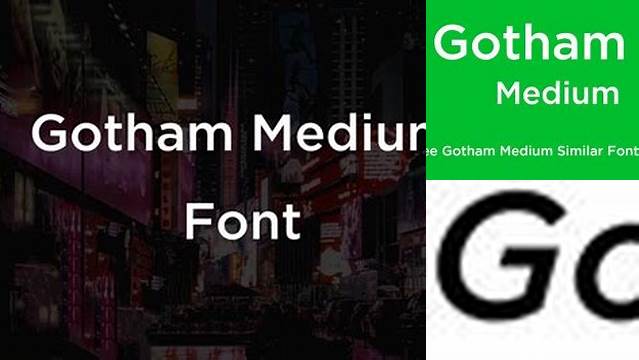
Hey guys! Looking to spice up your design game on your Mac? You're in the right place! Today, we're diving headfirst into the world of the Gotham Medium font, and, even better, how you can snag it for FREE! Yep, you heard that right. This iconic typeface, known for its clean lines and modern aesthetic, is a favorite for everything from website headlines to print materials. Let's get started on how you can grab a Gotham Medium font free download Mac and start using it right away.
Gotham Medium Font: A Design Powerhouse
Gotham Medium font isn't just any font; it's a design statement. Its versatility makes it ideal for a wide range of projects. Whether you're designing a sleek website, crafting eye-catching marketing materials, or simply sprucing up a personal project, the Gotham Medium font can elevate your work. Its clean, geometric design makes it incredibly readable, which is crucial for any design, and its modern style ensures your project feels current and stylish. This font family has many weights and styles, but today, we are going to focus on Gotham Medium.
The beauty of Gotham Medium lies in its simplicity. It's not overly embellished, which allows the message to shine through without distraction. This font is an excellent choice for headlines, subheadings, and even body text, depending on the context. Its neutral design makes it pair well with various design elements and other fonts. This adaptability is why it's become a go-to font for designers worldwide. From small businesses to large corporations, the Gotham Medium font has found its place, demonstrating its impact on design. It has the ability to make any design project pop. With just a few clicks, you can start downloading your Gotham Medium font and transform your designs.
Moreover, Gotham Medium is perfect for creating a sense of professionalism and trust. Its clean lines and straightforward design convey clarity and reliability. This makes it an excellent choice for branding materials, like logos, business cards, and brochures. Using Gotham Medium can make a lasting impression and strengthen your brand identity. Its popularity has created an entire industry with copycats. This is a testament to the popularity of the Gotham Medium font.
The History and Popularity of Gotham
The story behind the Gotham Medium font is as interesting as its design. Commissioned by GQ magazine in 2000 and designed by Tobias Frere-Jones, Gotham was inspired by the architectural signage of mid-20th-century America. Its geometric forms and simple lines pay homage to this rich visual history. The font's instant success stemmed from its ability to blend a classic look with modern sensibilities.
Over the years, the Gotham Medium font has graced the pages of countless publications and websites. It became the face of the Obama presidential campaign, solidifying its place in history. This exposure helped make the font a recognizable symbol of design and branding. It's been a staple in popular culture ever since. This widespread adoption cemented its status as a must-have for designers and typographers. Its influence is still felt, with new projects constantly using its design.